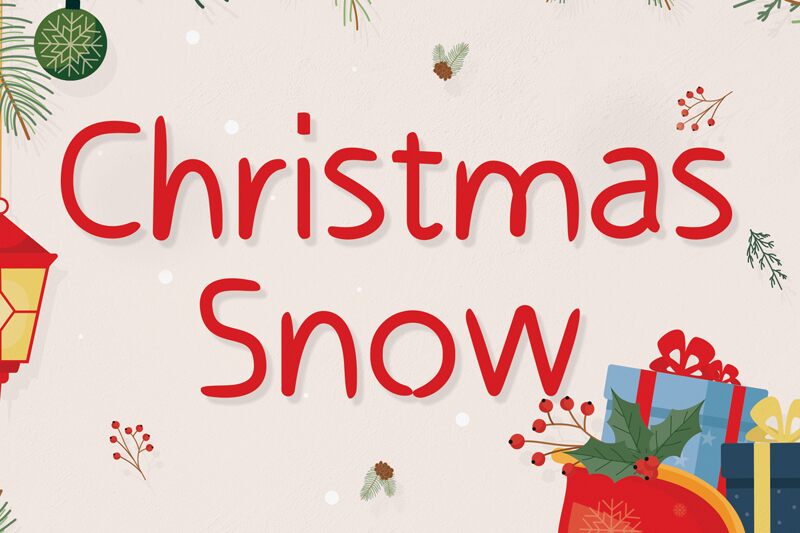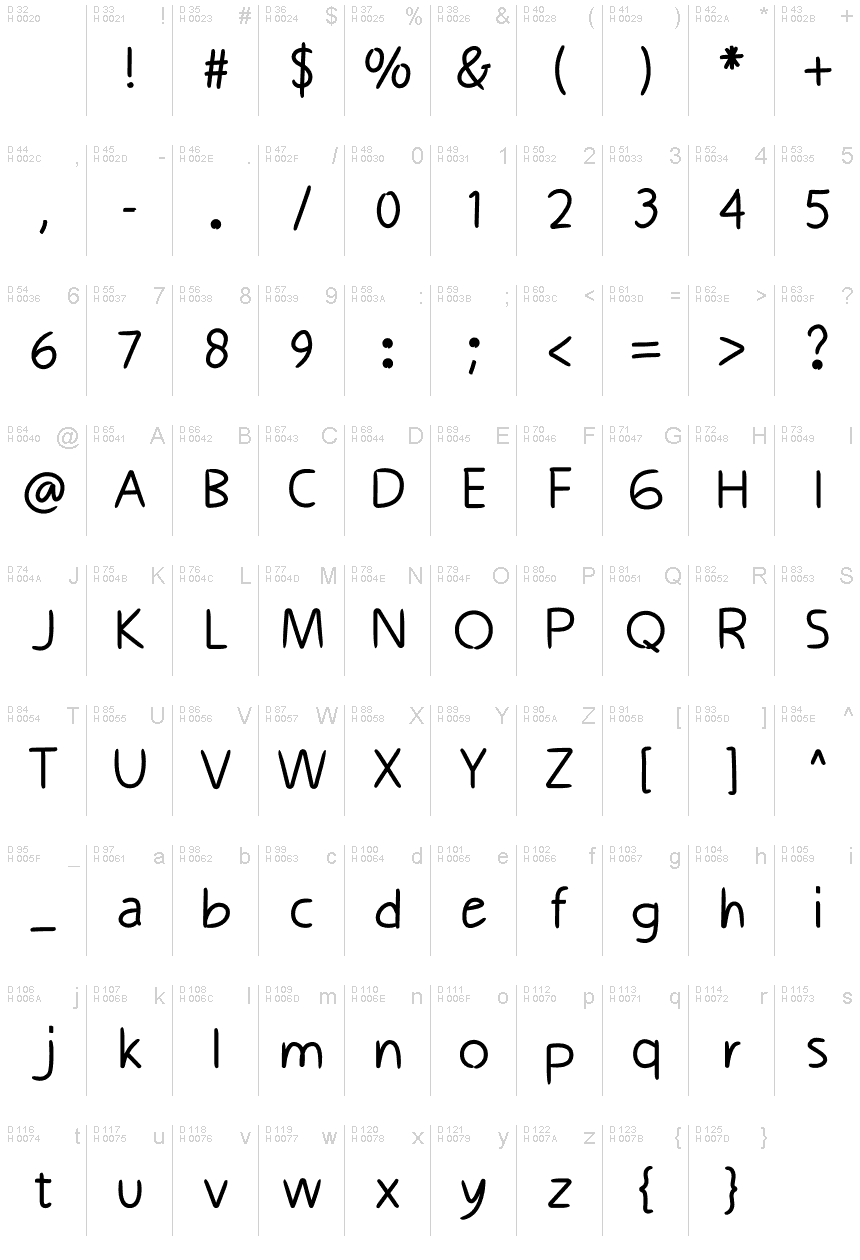
Christmas Snow
Christmas Snow font is a handwritten font designed by Font3.
The latest style letters are perfect for wall displays, wedding invitations, social media post logos, advertisements, product packaging, product designs, labels, photography, watermarks, invitations, stationery, and any project that requires taste handwriting.